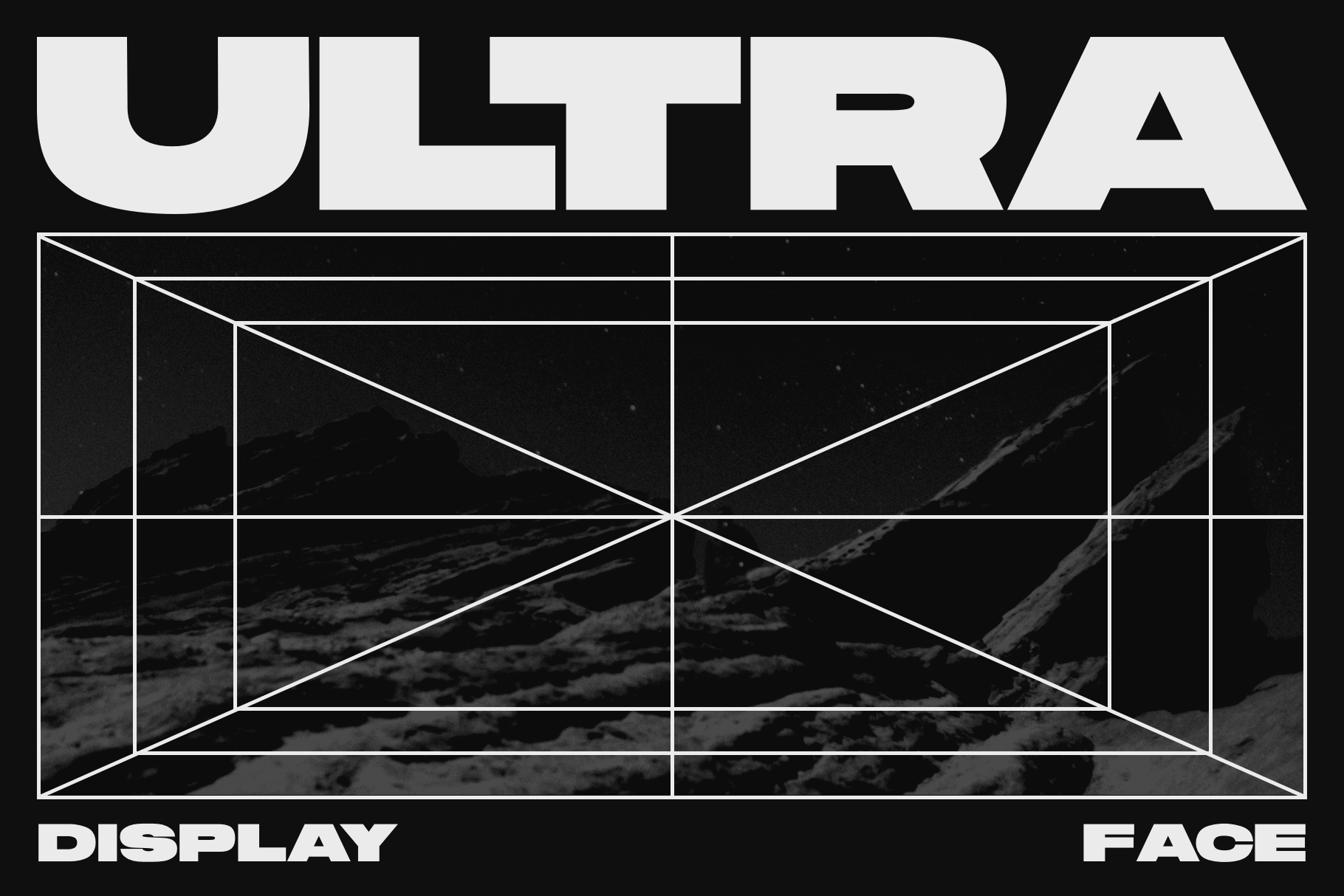
NF ULTRA - Expanded Display Font
NF ULTRA is what you use when you want to push the boundaries in your designs. A geometric sans-serif stretched to the breaking point, this is a living typeface which will be updated over time with additional characters, glyphs, and ligatures - it will grow with you. Use it in any project that requires a bold, clear statement.
NF Ultra was originally designed for personal use. As such, there are currently no lowercase letters. I will expand the family in the future with lowercase letters, more punctuation, ligatures, diacritics, and more varied weights. With each addition the price will go up, so get it now at the introductory price.